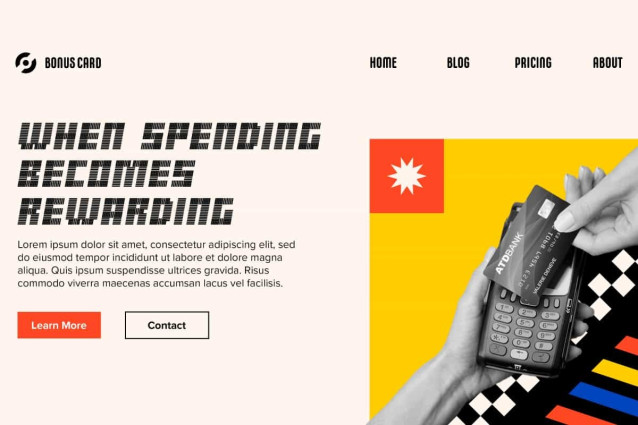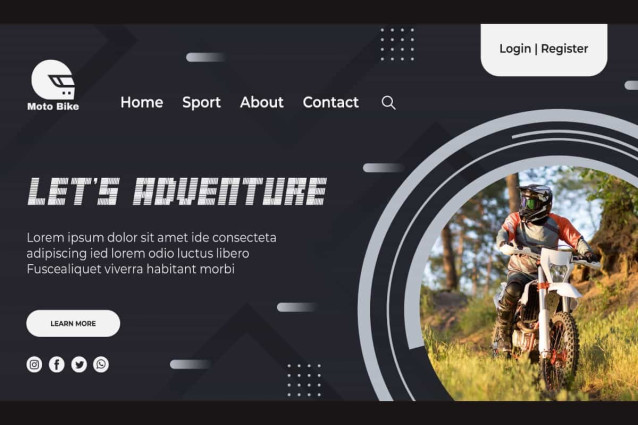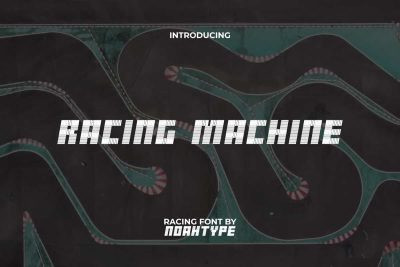
Racing Machine Font
Racing Machine Font is a decorative futuristic racing font by NoahType. The characters in this font are made quite complex so that they can appear unique but can still be read clearly. This font will be suitable for a lot of projects, such as custom design, stationery, label, poster, signage, catalog, cover, quotes, website, and more!
Racing Machine Font includes full set of Uppercase and Lowercase Basic Characters, Numerals and Punctuation. This font has a techno vibes that will make you believe it is the perfect choice for many industries, such as fashion, sports, racing, game, automotive, advertisement, café, event organizer, printing, publishing, etc.